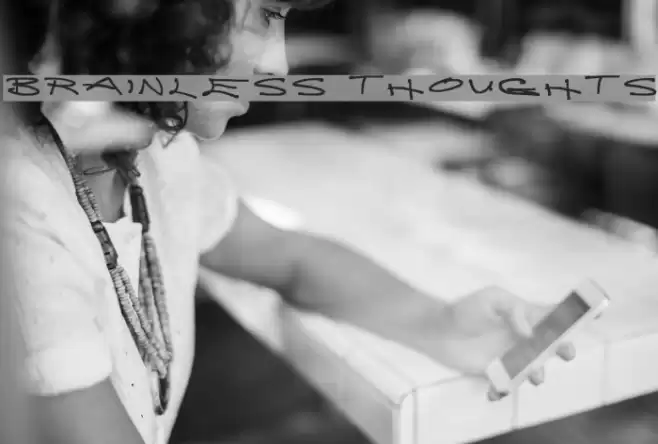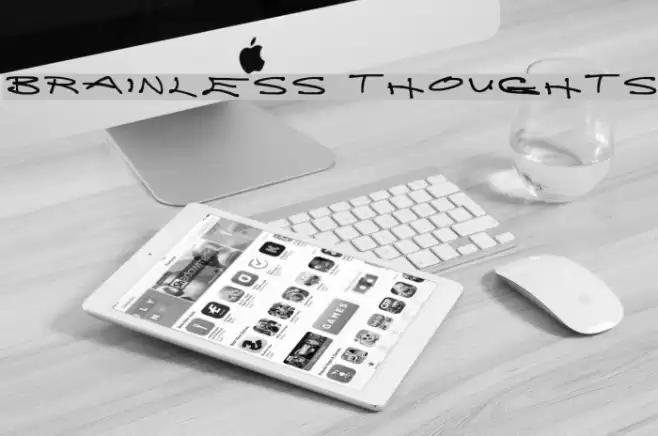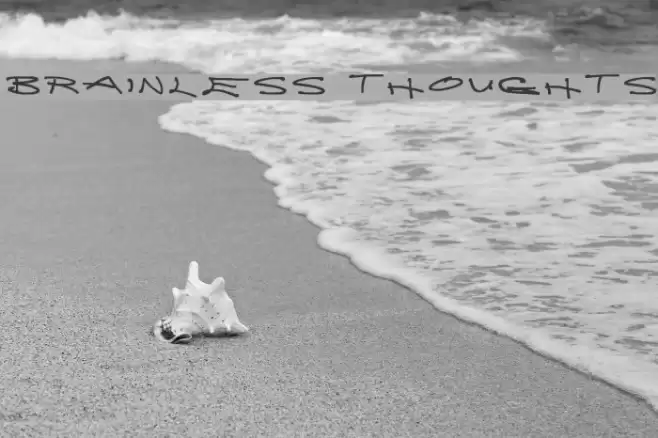
Brainless Thoughts Font
Brainless Thoughts Description
This font features a dynamic and edgy handwritten style, characterized by its irregular strokes and a slightly chaotic appearance. The uppercase letters are bold and expressive, with a sense of movement that suggests a quick, energetic writing style. The lowercase letters maintain this energy, with a consistent flow that ties the characters together. The font includes unique elements, such as the slashed 'Ø', adding to its distinctive personality. The overall design is informal and artistic, making it suitable for creative projects that require a personal touch.
A dynamic, edgy handwritten font with irregular strokes and a chaotic appearance from Handwritten fonts.
- Proposed Projects: Ideal for creative projects like album covers, posters, and artistic branding that require a personal, energetic touch.